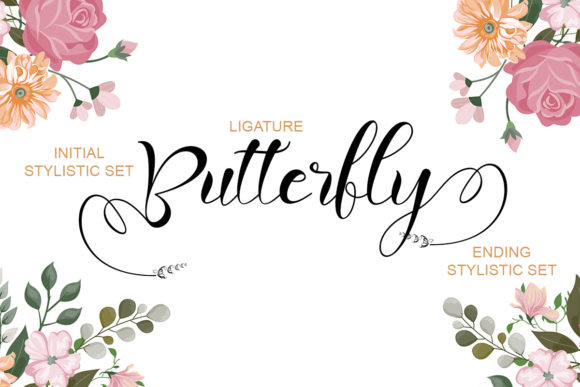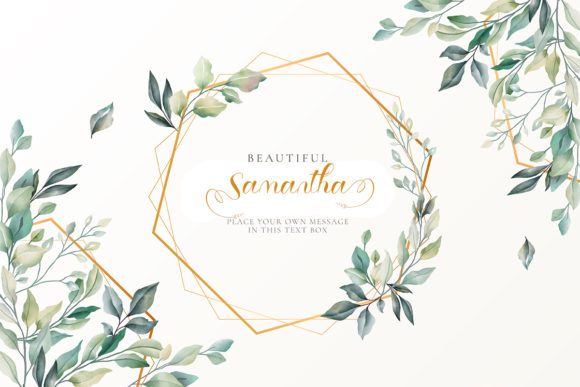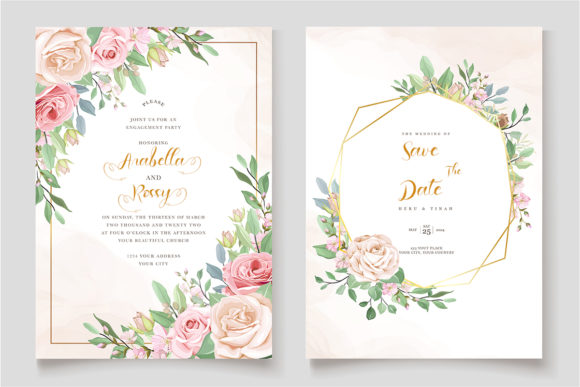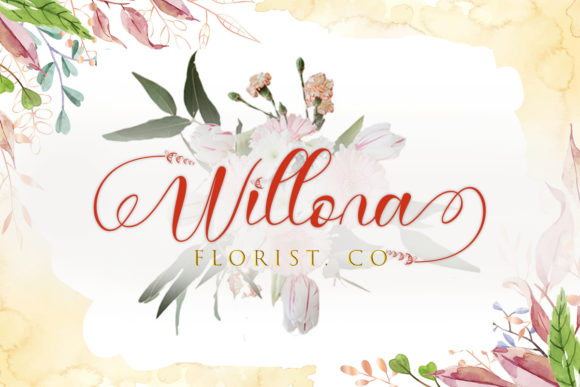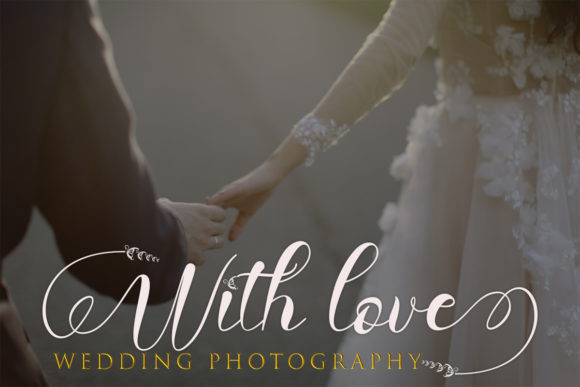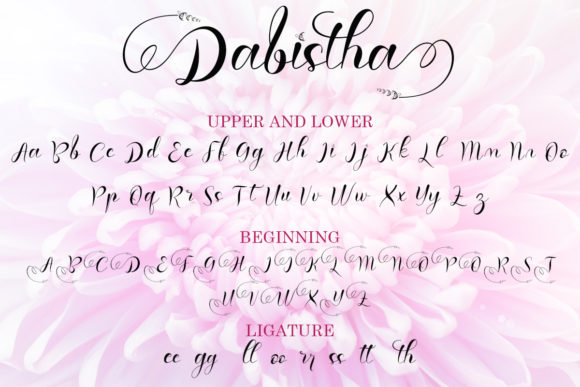
The Designer’s Delight: A Deep Dive into Dabistha Font
I’ll never forget the moment I stumbled upon Dabistha Font while working on a project that required a touch of elegance and sophistication. I had been searching for the perfect font for hours, trying out different styles and weights, but nothing seemed quite right. That was until I saw Dabistha – its delicate, handwritten curves and versatile style instantly caught my eye. I knew right then and there that I had found the one.
As I started working with Dabistha, I fell in love with its unique charm and character. Here are a few things that make this font stand out:
- ✨ Delicate and elegant handwritten style that’s perfect for a variety of design projects
- ✅ Well-rounded letters that add a touch of sophistication to any design
- 💫 Incredibly versatile style that works well for both digital and print projects
- 🔥 PUA encoded, making it easy to access all glyphs and swashes
Of course, no font is perfect, and Dabistha has a few small quirks to keep in mind:
- 🤔 Some users may find the font a bit too delicate for certain projects, such as large-scale signage or bold headlines
- ⚠️ As with any font, it’s essential to test it thoroughly to ensure it works well with your specific design and layout
One of the standout features of Dabistha is its OpenType features and glyphs. With Dabistha, you can access a range of stylistic alternates, swashes, and glyphs to add an extra layer of creativity to your designs.
The Story Behind Dabistha: A Designer Inspiration
While the true story behind Dabistha may be unknown, it’s easy to imagine that it was created by a designer with a passion for elegant, handwritten typography. Perhaps the designer was inspired by the flowing curves of calligraphy, or the delicate lines of hand-lettering.
Whatever the inspiration, it’s clear that Dabistha is a font that was created with love and care, and it shows in the attention to detail and the beautiful, flowing curves of the letters.
- Q: What is Dabistha Font?
- A: Dabistha is a delicate and elegant handwritten font, perfect for a variety of design projects.
- Q: Is Dabistha Font PUA encoded?
- A: Yes, Dabistha Font is PUA encoded, making it easy to access all glyphs and swashes.